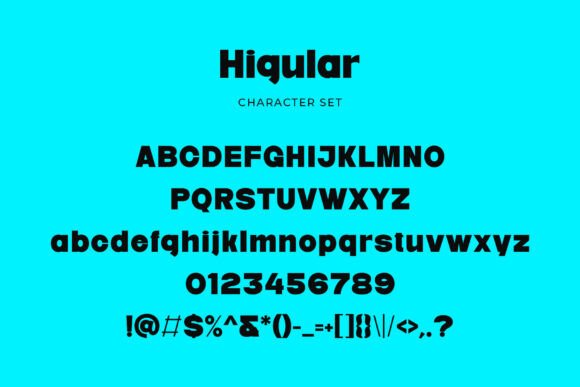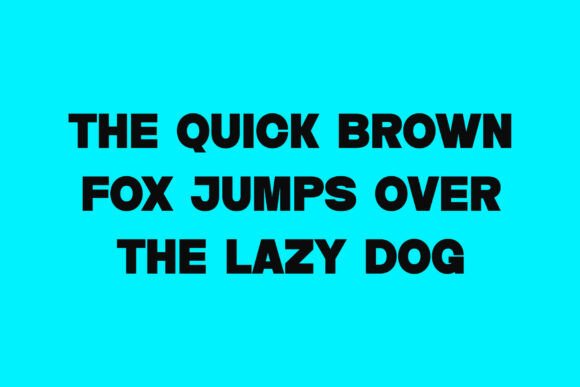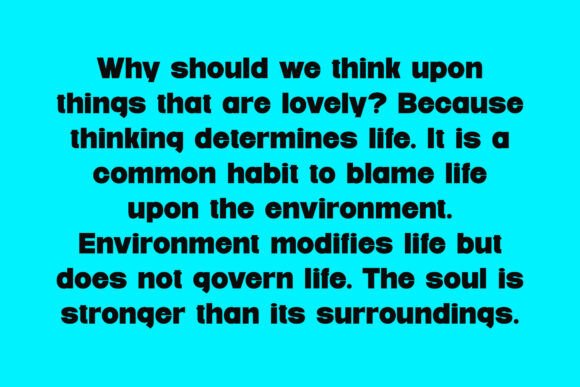
Introduction to Higular Font
As a designer, there’s nothing quite like that moment when a font finally clicks – the perfect combination of style and legibility that makes your creative project shine. For me, it was the Higular Font that stole the show, and I’m not alone. This lovely and timeless sans serif font has been a go-to choice for designers looking to create eye-catching logos, branding, and quotes.
Whether you’re working on a high-quality design resource or simply want to add a touch of elegance to your next project, the Higular Font is a valuable asset. Its unique and beautiful touch brings letters to life, making it the perfect choice for designers who crave a little extra flair. And the best part? It’s available for free download, making it an accessible design resource for creatives of all levels.
Key Features of Higular Font
- Designed to be highly legible, with clear and crisp typography that stands out in creative projects.
- Perfect for use in digital and print media, including logos, branding materials, and creative projects.
Honest Review: Higular Font
I recently had the chance to dive into the Higular Font, and I must say it’s been a solid addition to my design arsenal. As a designer, I’m always on the lookout for high-quality design resources to elevate my creative projects. The Higular Font definitely delivers.
- ✨ Unique Design: The Higular Font boasts an unmistakable style that sets it apart from more generic fonts. Its quirky flair adds a touch of personality to any design.
- ✨ High-Quality Output: The font’s high quality is evident in its crisp lines and smooth texture. It’s perfect for use in a variety of contexts, from web design to print projects.
As for any limitations, I would say the Higular Font could benefit from more character variations. Currently, the font is limited to a single set of characters, which may not be ideal for longer texts.
- ⚠️ Limited Character Set: While the font’s unique design is a major selling point, the limited character set is a drawback. It’s essential to consider this when deciding whether to use the Higular Font for extended texts.
Overall, the Higular Font is a fantastic design resource for anyone looking to add a touch of personality to their projects. With its high-quality output and unique design, it’s definitely worth considering for your next creative project.
Transparency is key, and the Higular Font’s transparent background allows for seamless integration with any design element. This level of flexibility is a major plus in my book.
Higular Font is commonly used for creative projects such as logo design, branding, and typography-based designs. Its transparent background makes it a great choice for designs that require a clean and minimalist look.